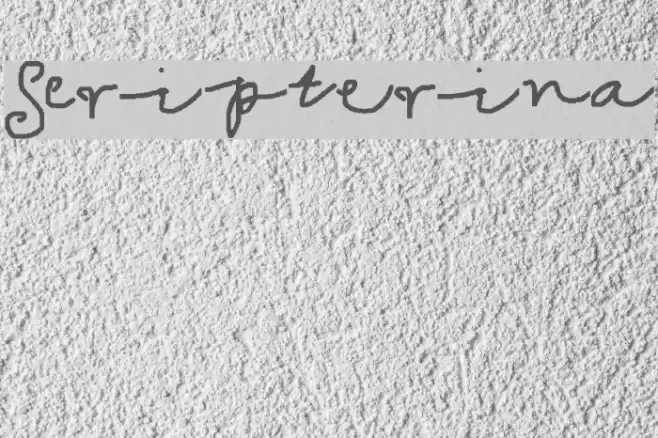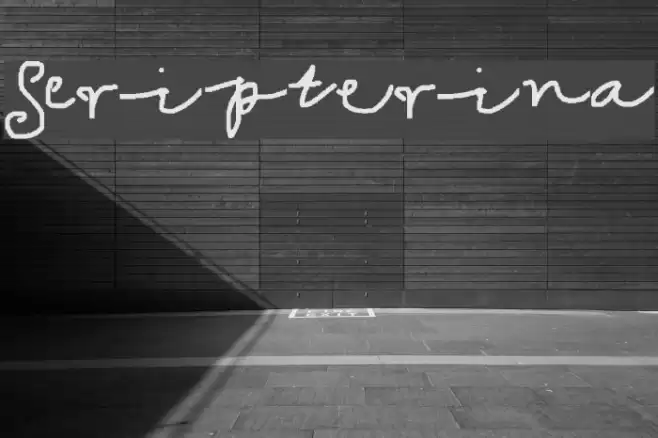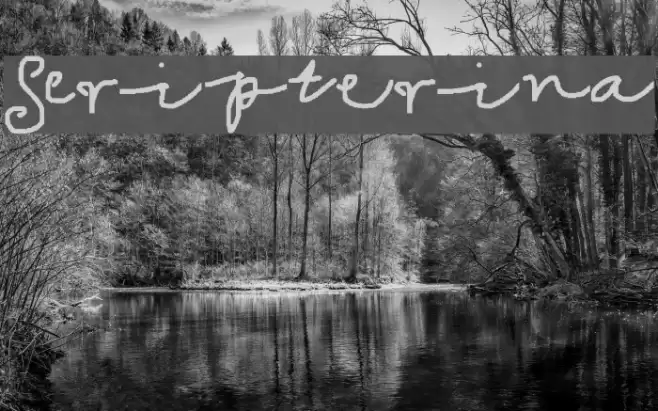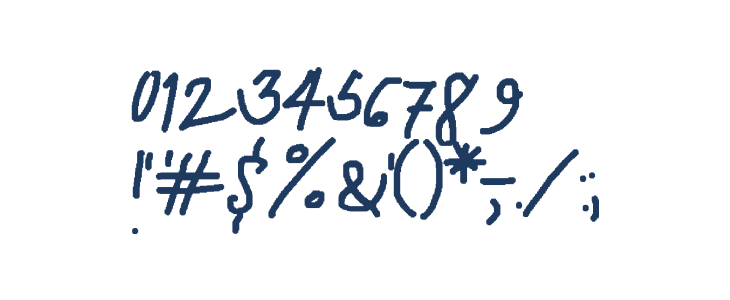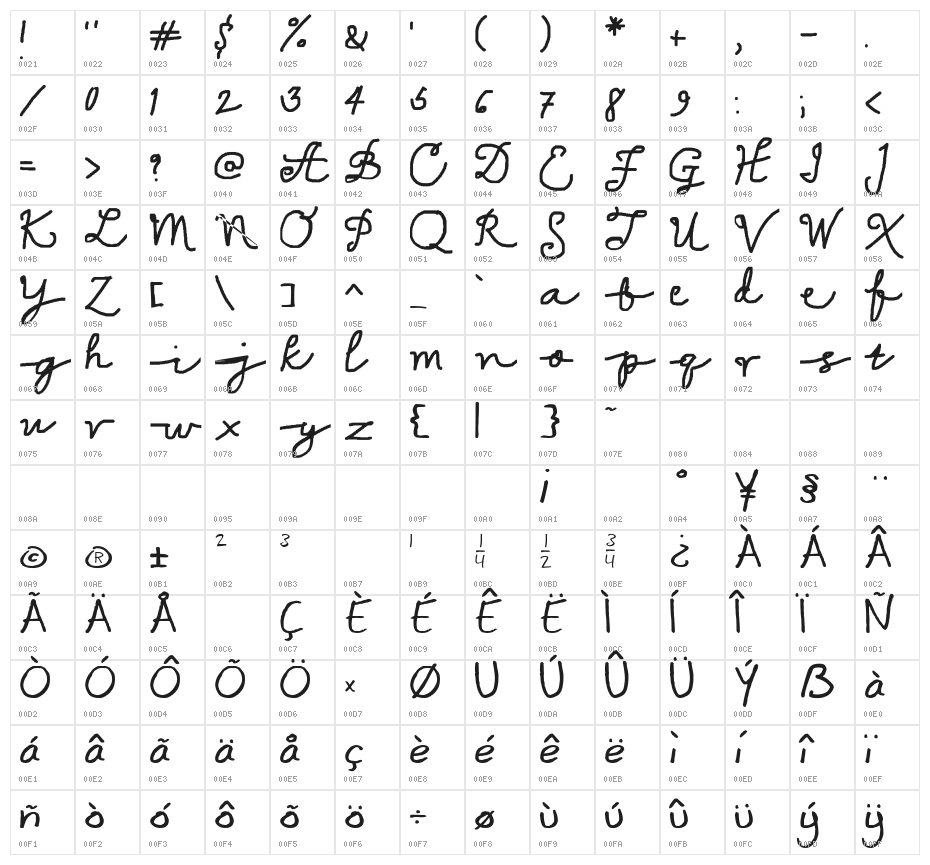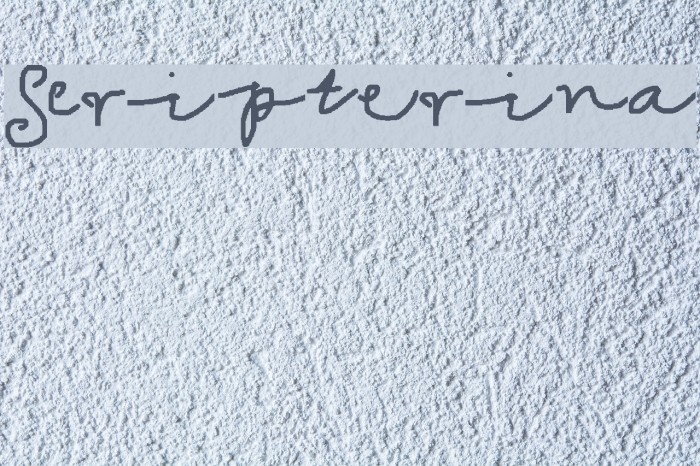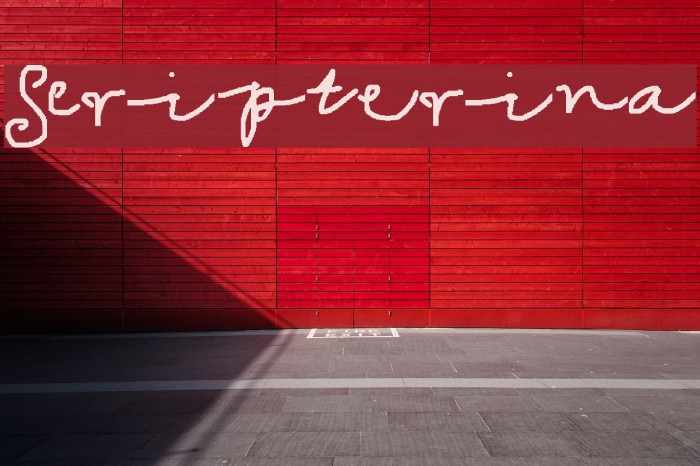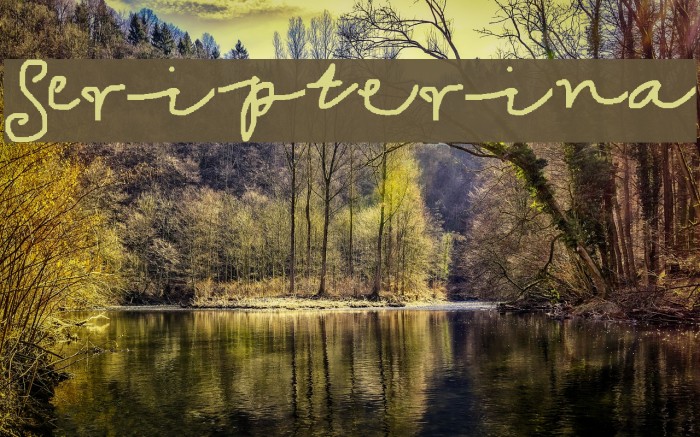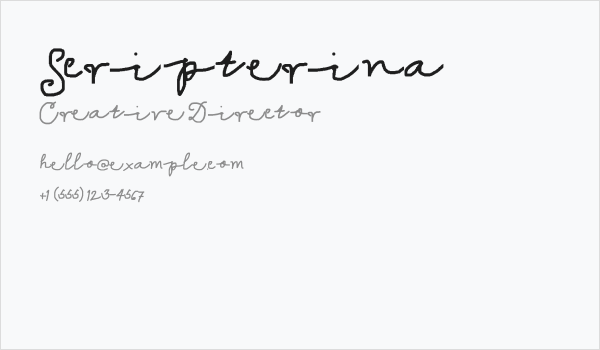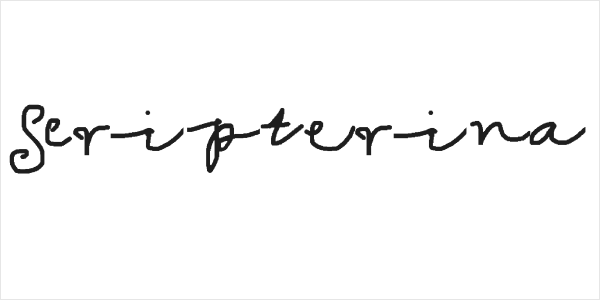
Scripterina Font
Scripterina Description
This font features a flowing, cursive style that mimics elegant handwriting. The uppercase letters are distinct with graceful loops and curves, while the lowercase letters maintain a consistent slant, enhancing the script-like appearance. The numerals are bold and slightly larger, providing a strong contrast to the delicate letters. Special characters are integrated seamlessly, maintaining the overall aesthetic. This font exudes a personal touch, making it ideal for projects requiring a handwritten feel.
A cursive, handwritten-style font with elegant loops and bold numerals from Uncategorized fonts.
- Proposed Projects: Ideal for wedding invitations, greeting cards, personal branding, and artistic projects requiring a personal touch.
- Overall Style: Elegant, Handwritten
- Use Case: Logos, Invitations, Artistic projects